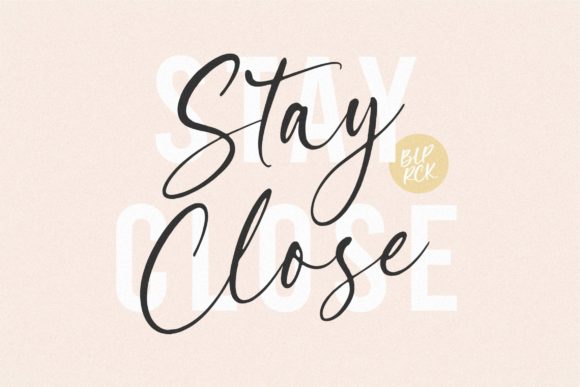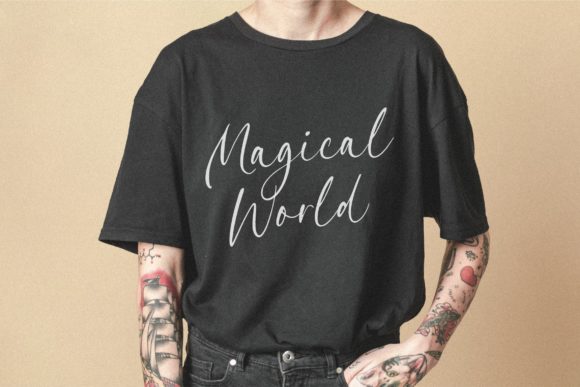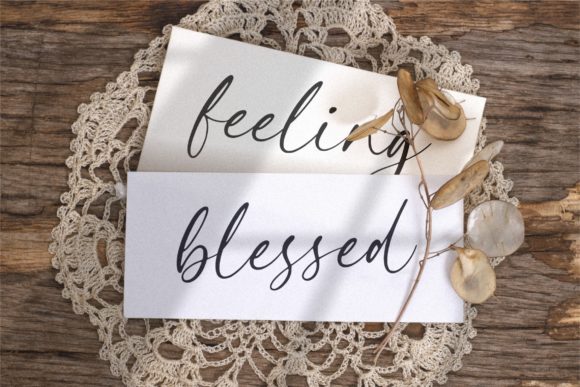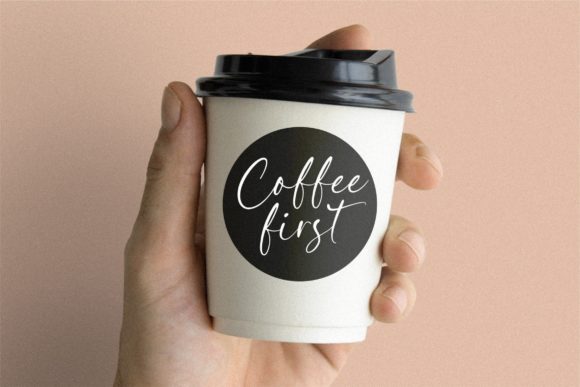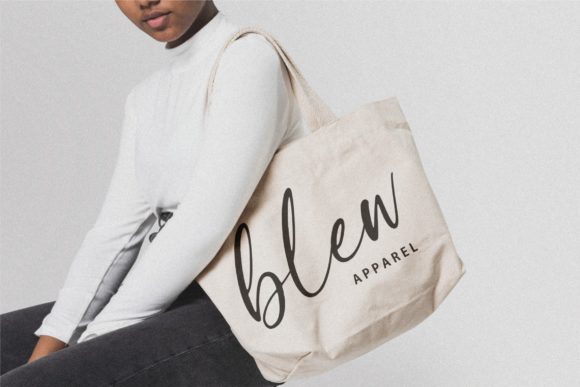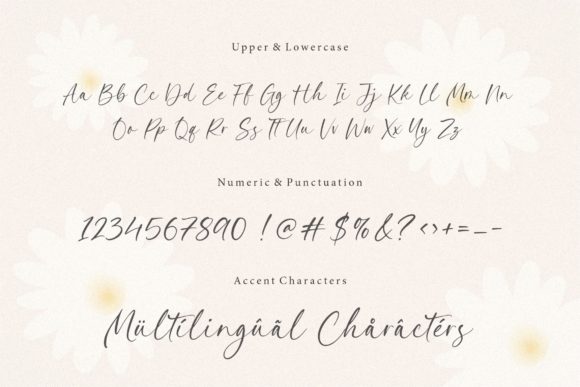
A New Era of Handwritten Elegance: Asterika Font
Have you ever found yourself staring at a blank page, searching for the perfect font to bring your creative vision to life? The struggle is real, but what if you stumbled upon a font that effortlessly transports your words to a world of whimsy and charm? For designers, this is exactly what the Asterika Font offers – a chance to breathe new life into their work.
This exceptional handwritten font boasts elegant and curvy lines that will leave a lasting impression on your audience. Whether you’re designing product packaging, branding materials, or magazine covers, the Asterika Font is the perfect tool to elevate your creative project.
Asterika Font Key Features
- Unique Characteristics: The font features a unique blend of modern and vintage elements, with subtle nuances in letterforms and spacing that add a touch of elegance and sophistication.
Asterika Font Review
I’ve had the chance to play around with the Asterika font, and here’s my honest take on it.
- Unique aesthetic: Asterika has a distinctive, futuristic vibe that’s perfect for modern designs.
- Good legibility: The font is clear and easy to read, even at smaller sizes.
- Versatility: Asterika comes in a range of weights and styles, making it suitable for various design projects.
- Not ideal for body text: While Asterika is great for headings and titles, it may not be the best choice for large blocks of body text.
- Limited language support: Asterika may not be optimized for languages with non-Latin scripts, which could lead to display issues.
- No italic or oblique styles: If you need to create italics or obliques, you’ll have to rely on manual adjustments or other fonts.
Overall, Asterika is a solid choice for designers looking to add a touch of futurism to their projects. However, its limitations should be carefully considered before making it the primary font for a design.
Getting the Most Out of Asterika Font
To get the most out of the Asterika font, use it for titles, headings, and other prominent text elements. This font is ideal for creating a modern and elegant look. Experiment with different font sizes and colors to achieve the desired effect.
The Asterika font is commonly used in:
– Brochures and flyers
– Business cards and stationery
– Social media graphics and ads
– Wedding invitations and decorations
– Any design project that requires a modern and elegant look.